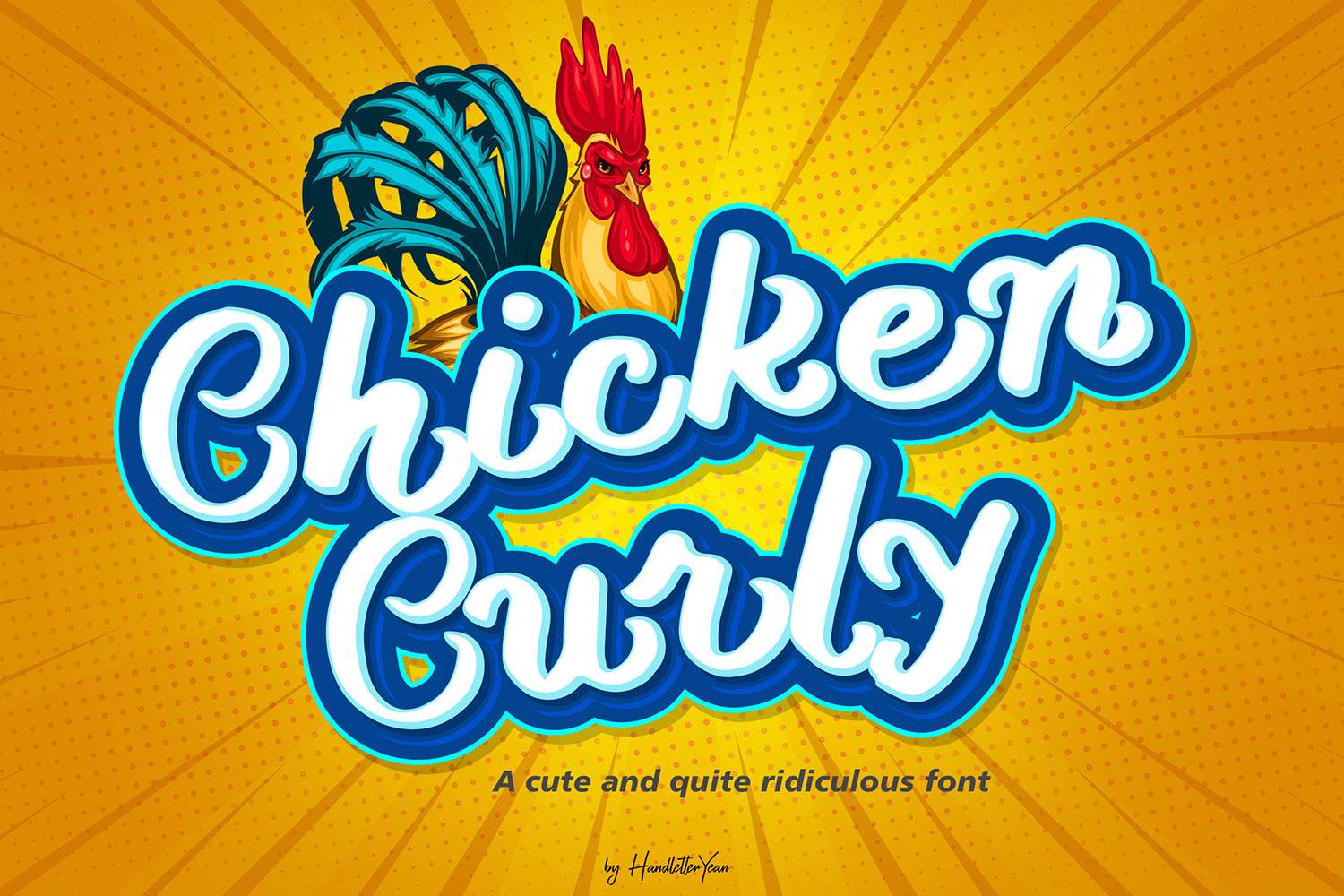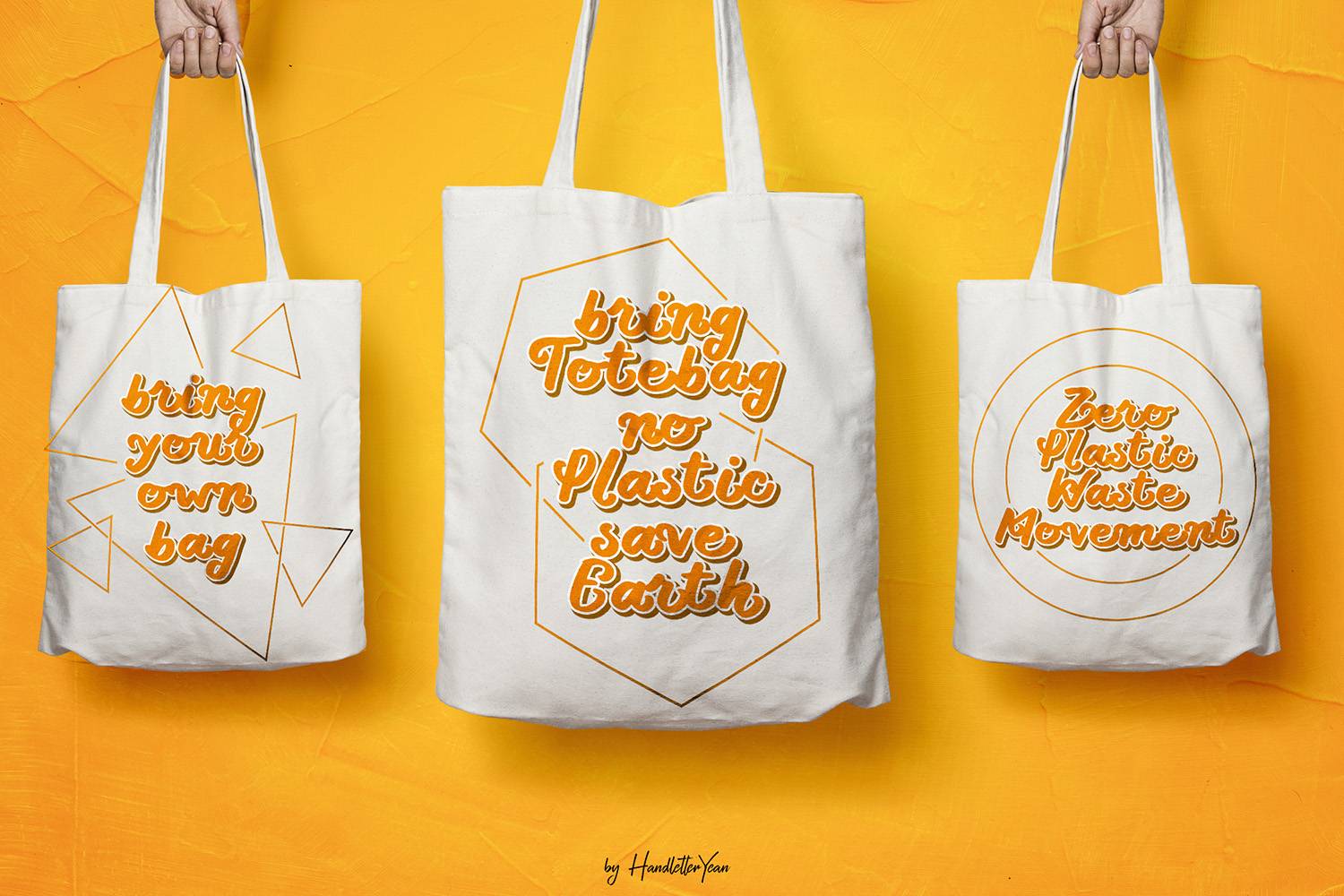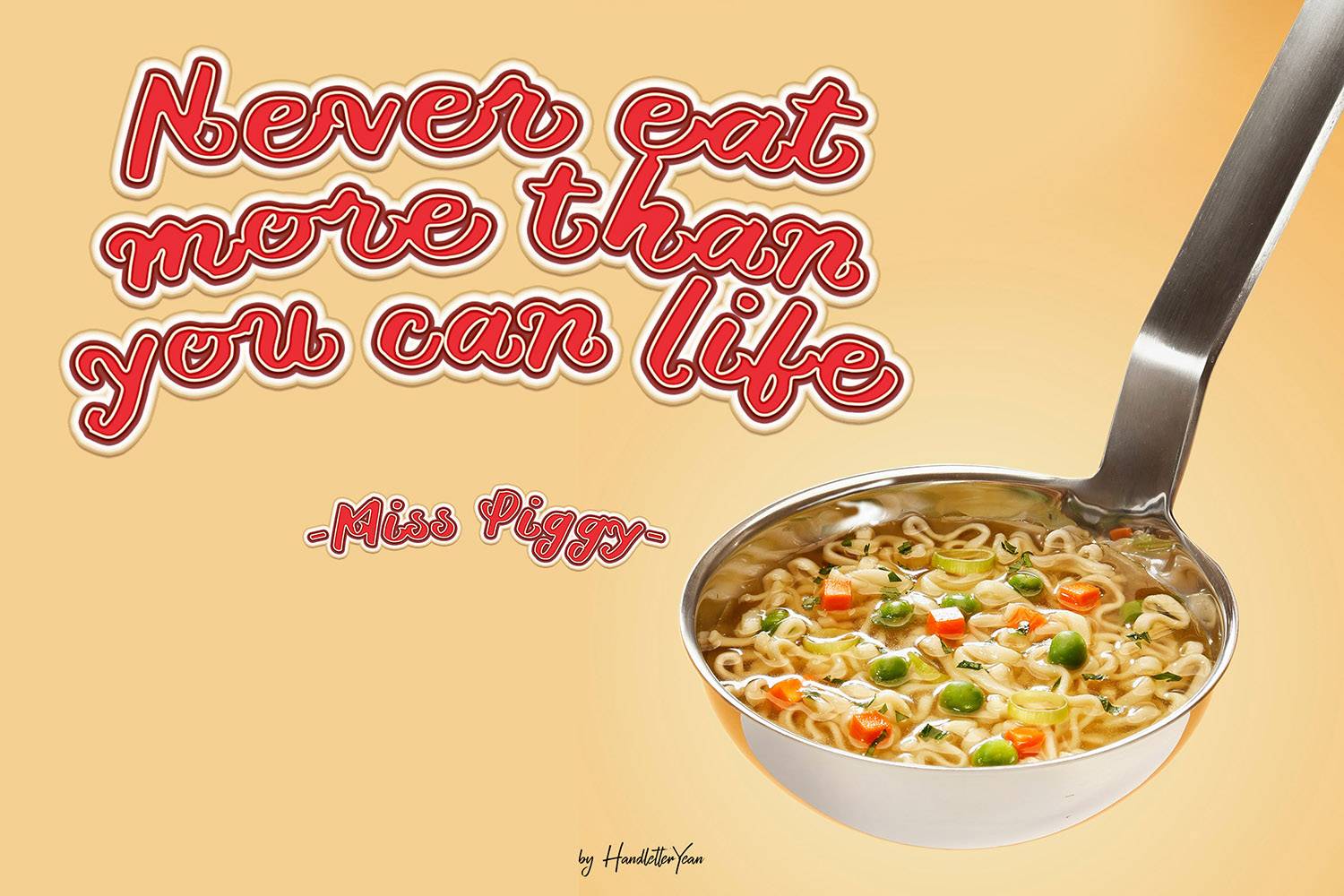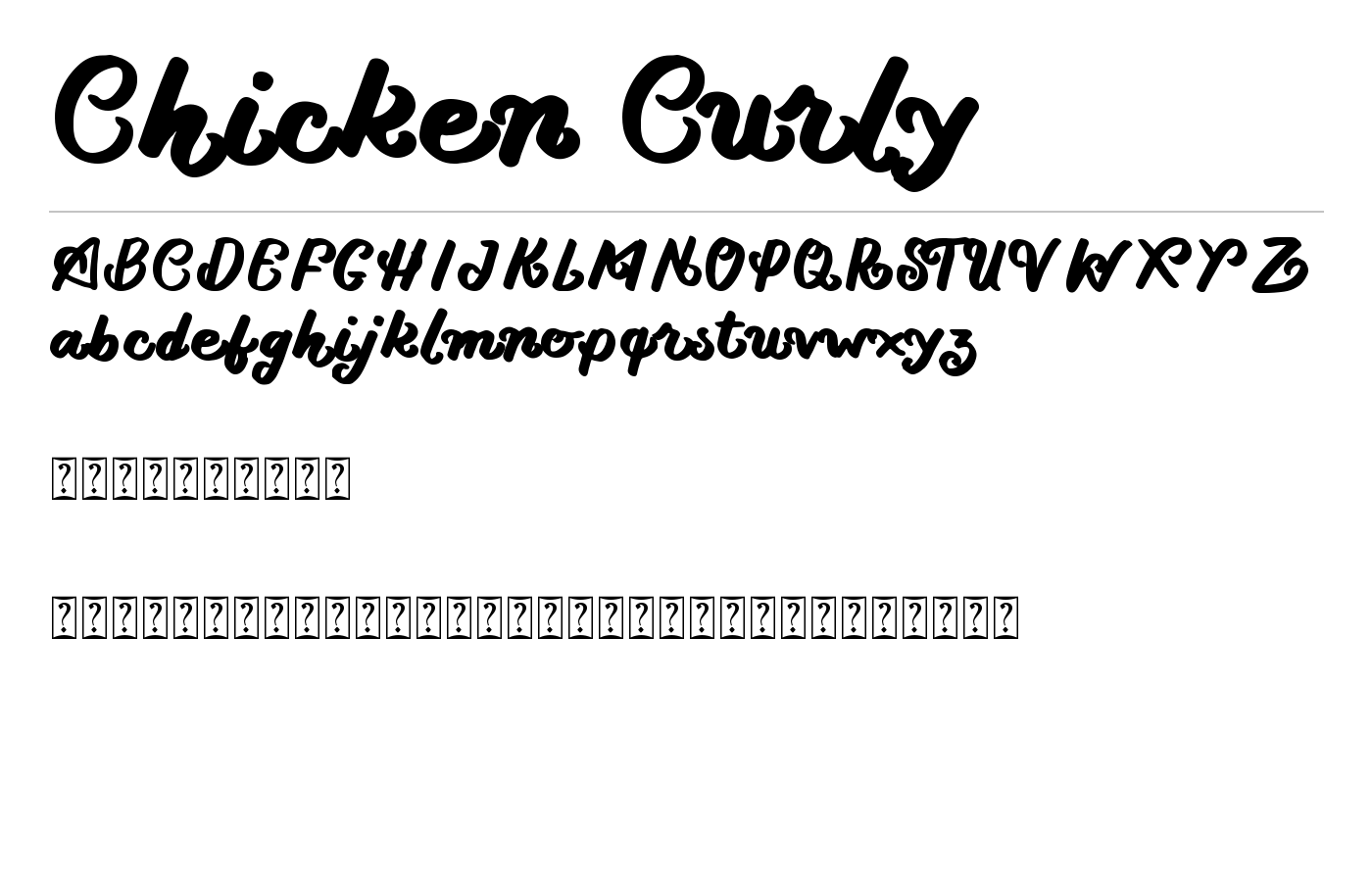
Chicken Curly is a playful, bold script font characterized by its smooth, rounded strokes and lively curls, giving it a friendly and informal feel. Its thick weight and moderate contrast make it highly legible for display use, while the whimsical letterforms add a fun, casual charm perfect for branding, packaging, and creative headlines. This font works well where a warm, inviting, and cheerful personality is desired.
Chicken Curly Font
About Chicken Curly Font
| Font family | Chicken Curly Font |
| Designer | HandletterYean |